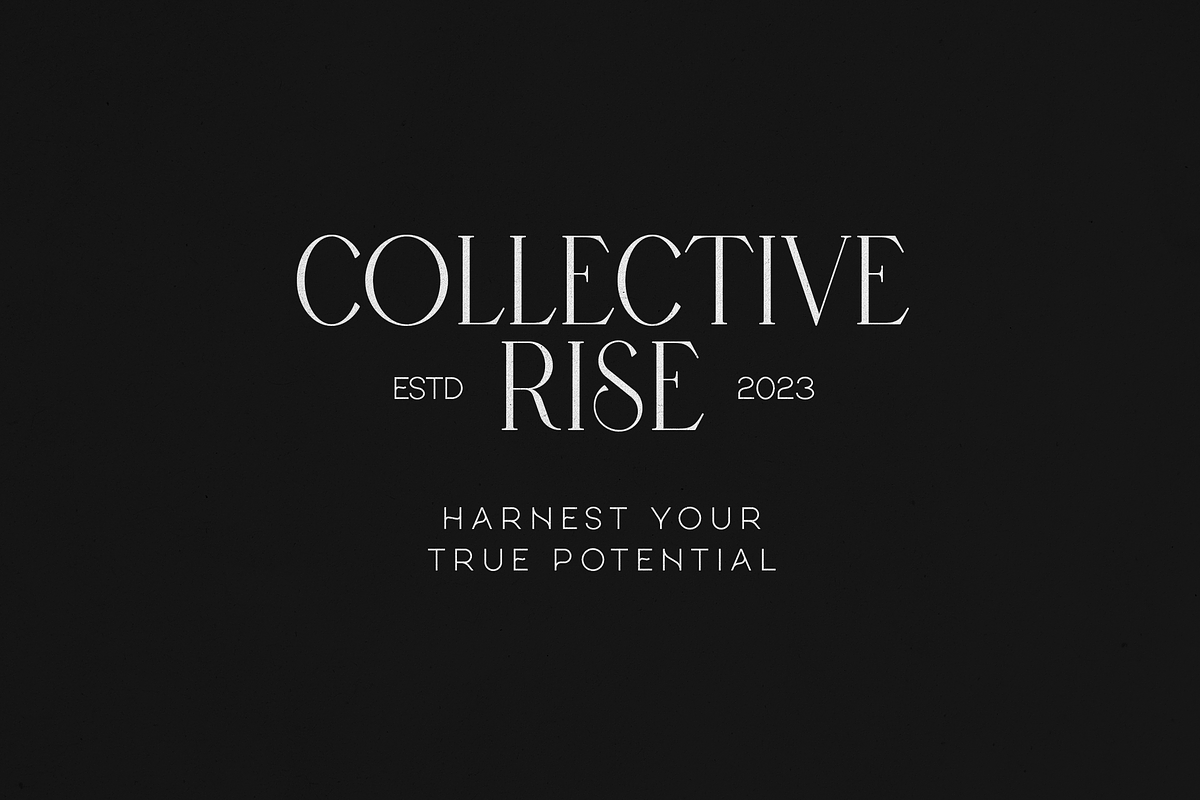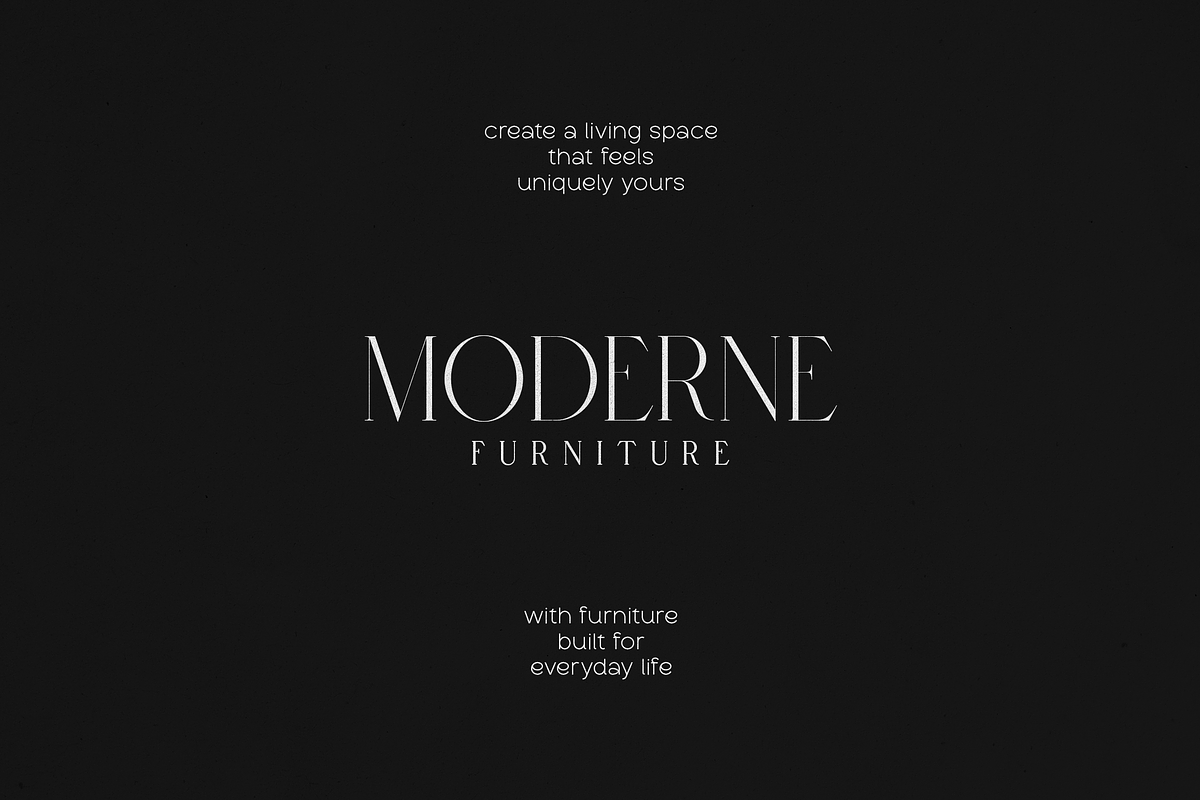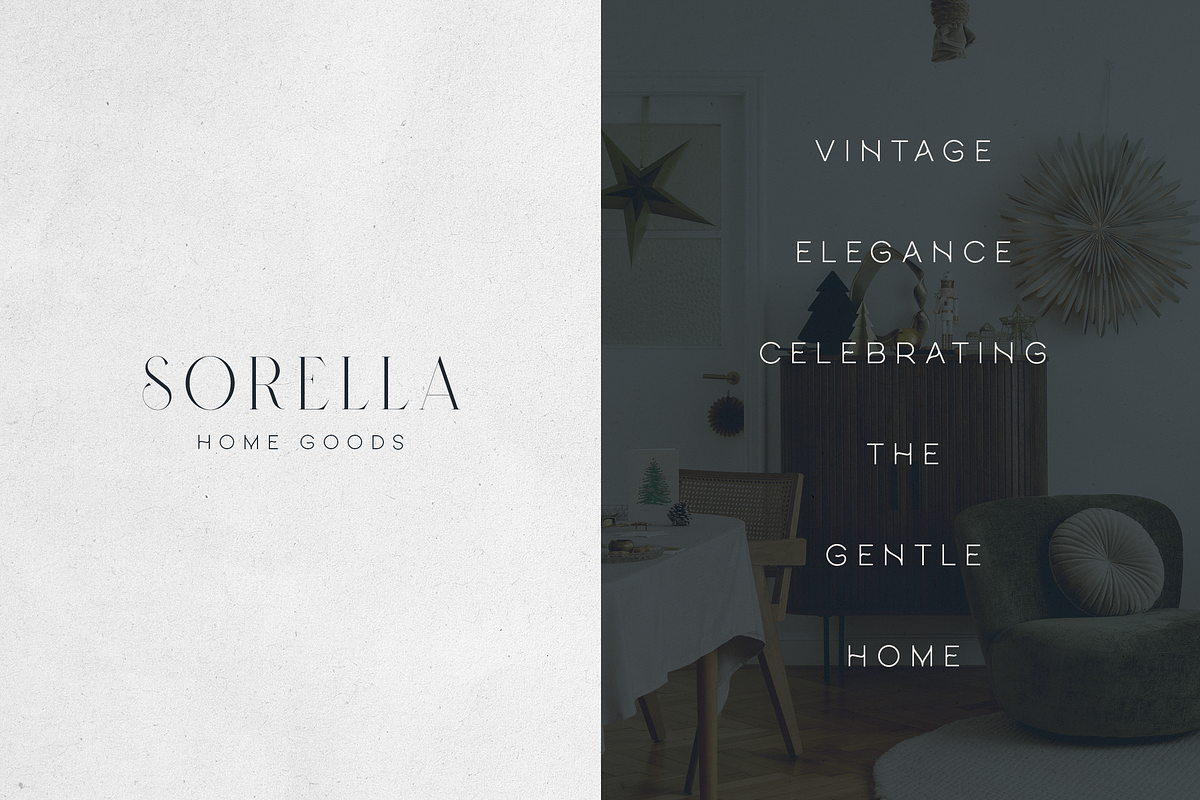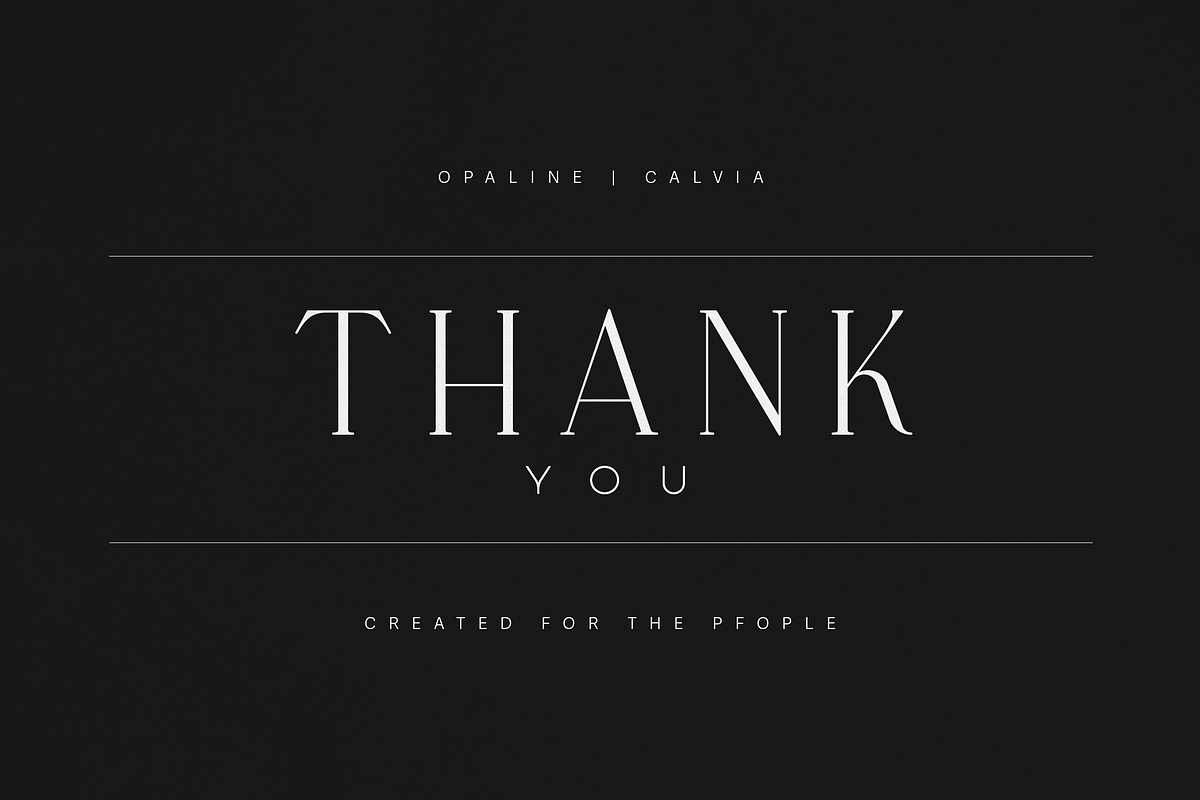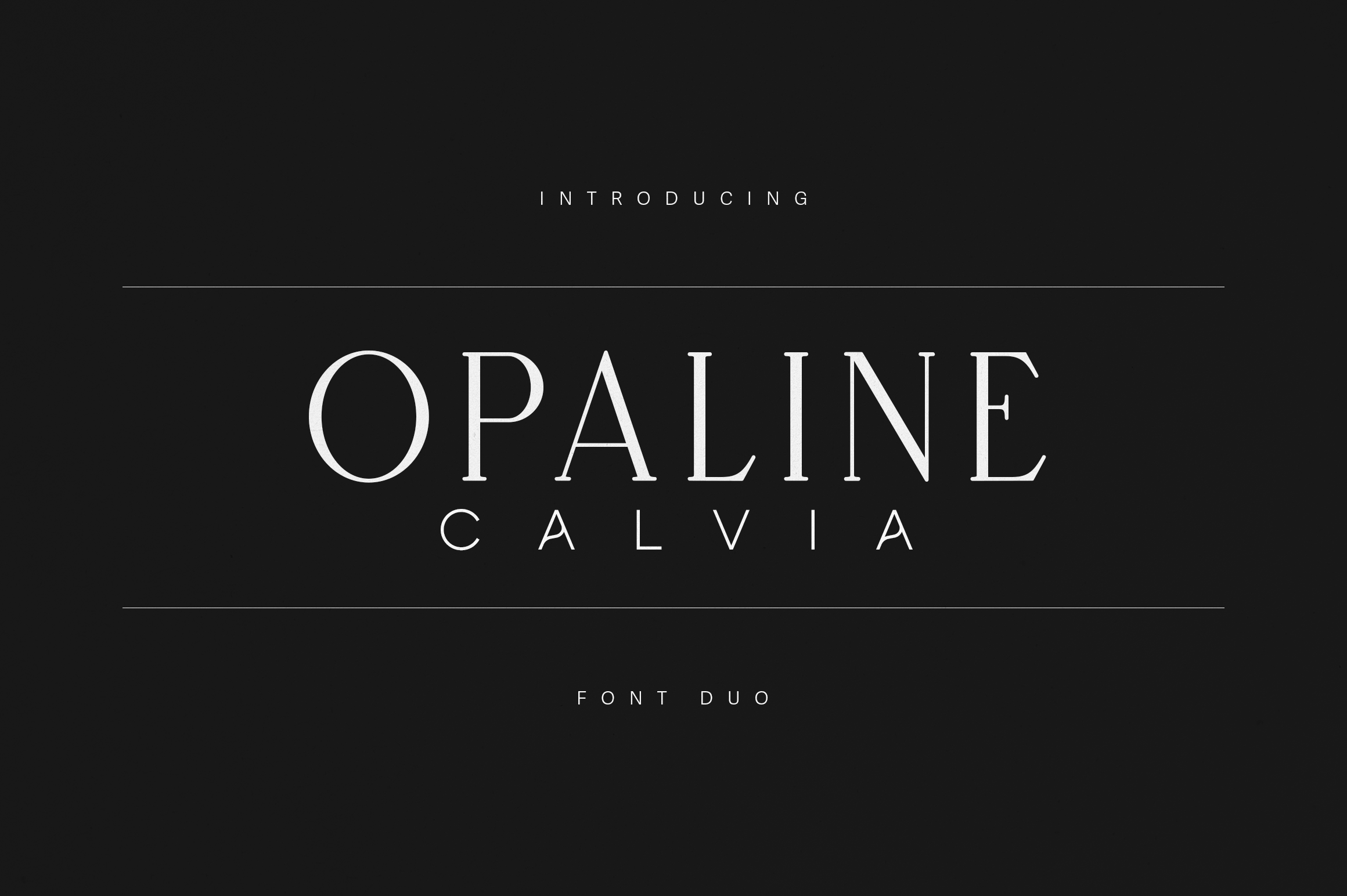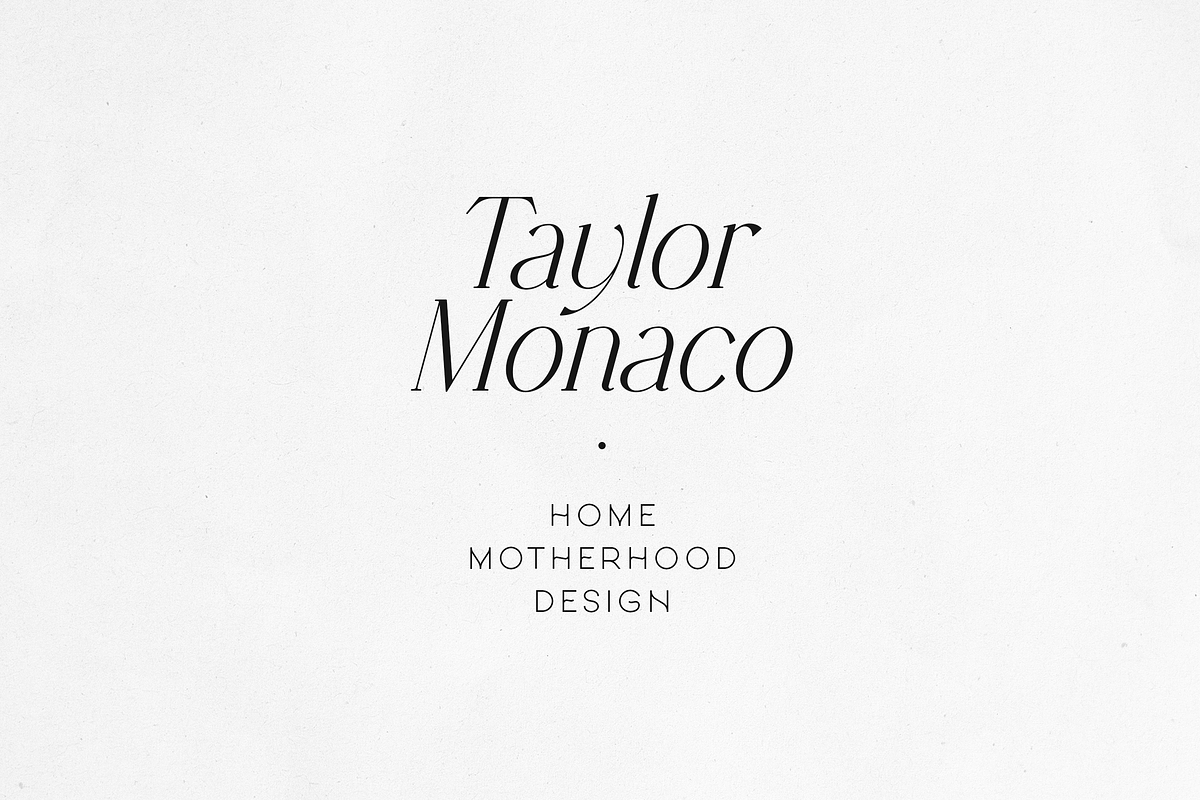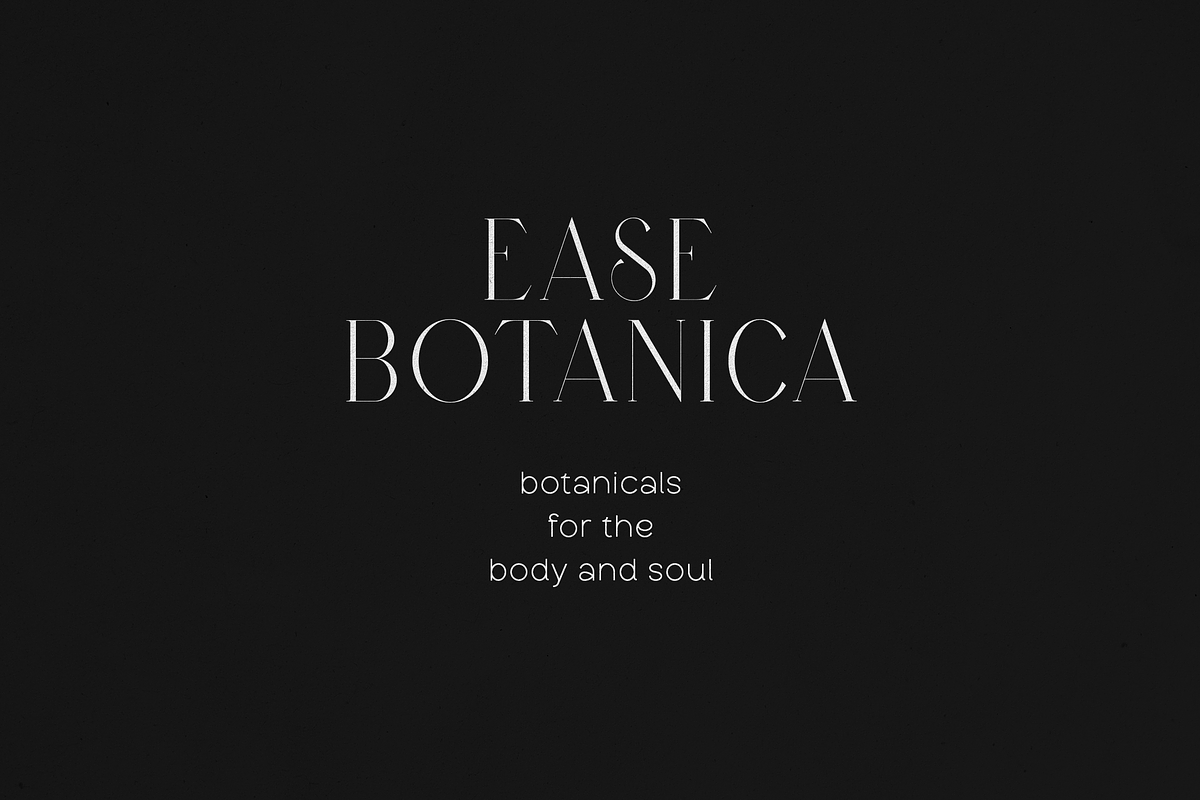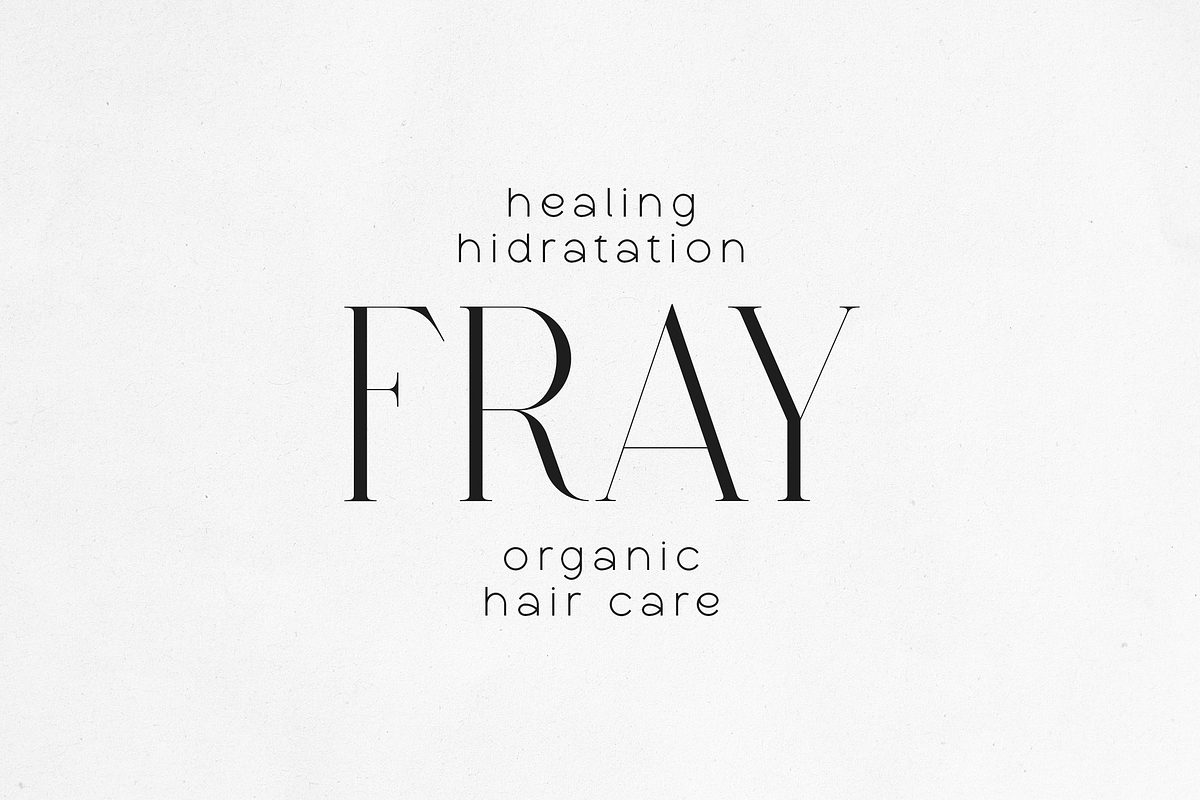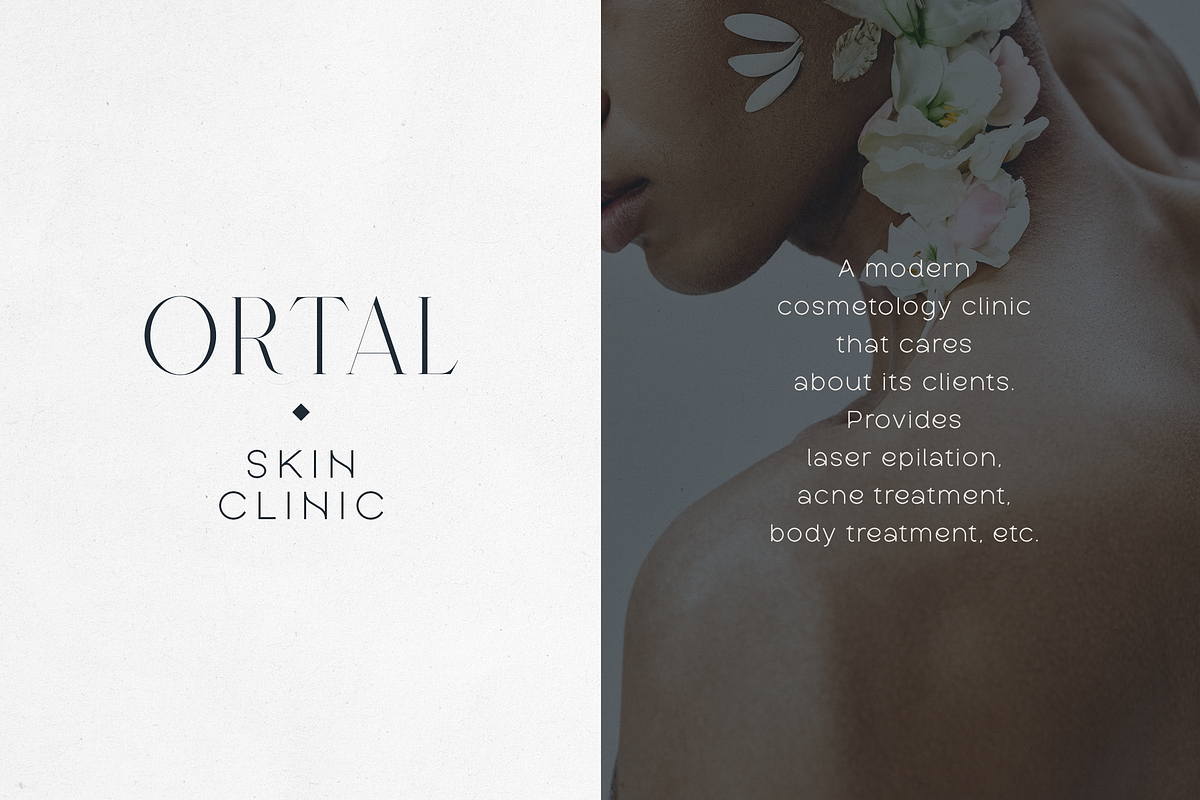
Opaline & Calvia – Modern Font Duo
Opaline & Calvia – Modern Elegant Font Duo
Opaline & Calvia is a refined font duo that blends high-contrast elegance with minimalist geometry, designed to elevate modern branding and editorial design. This pair captures the essence of timeless sophistication — perfect for luxury brands, fashion labels, interior studios, beauty products, and upscale lifestyle businesses.
The serif Opaline exudes grace and confidence with its slender strokes and classic proportions, while the sans-inspired Calvia adds a touch of contemporary minimalism and balance. Together, they create a striking harmony that’s ideal for logos, packaging, magazines, websites, and social media visuals.
Crafted with versatility in mind, this duo effortlessly transitions between high-end branding and modern editorial compositions. Each font complements the other, offering a perfect blend of romantic refinement and clean precision.
- Opaline – Elegant Serif Font
- Calvia – Modern Minimal Sans
- Uppercase & Lowercase Letters
- Perfect Kerning for Headings & Logos
Ideal For
- Branding & Logo Design
- Editorial Layouts & Magazine Titles
- Fashion & Lifestyle Projects
- Beauty, Wellness & Skincare Brands
- Home Decor & Boutique Packaging